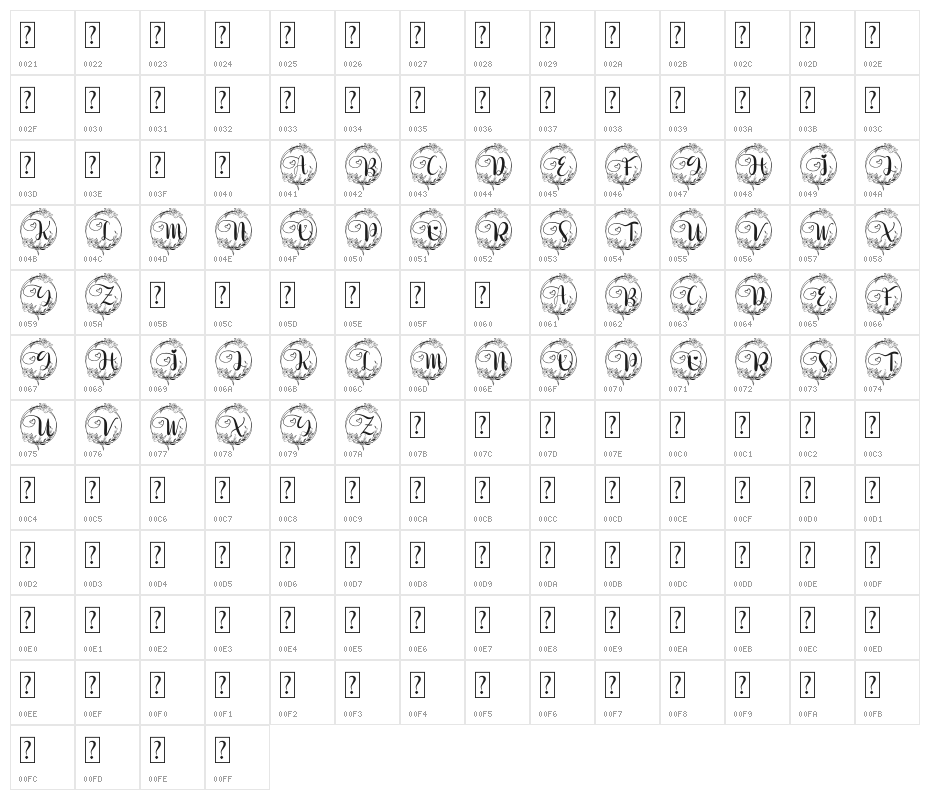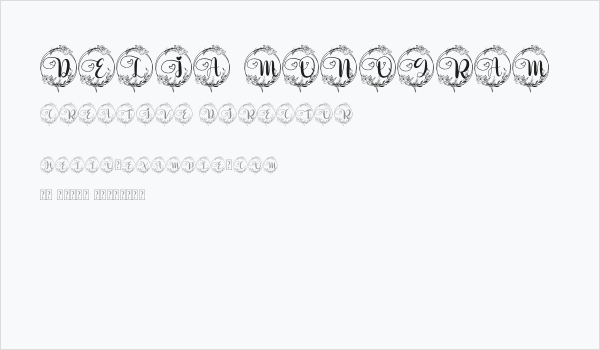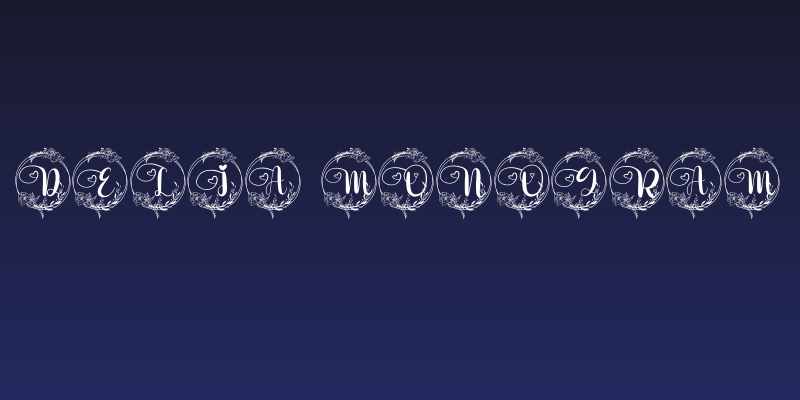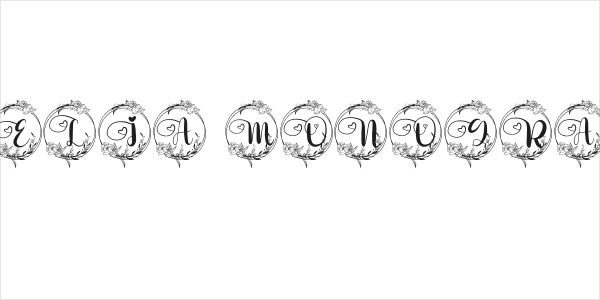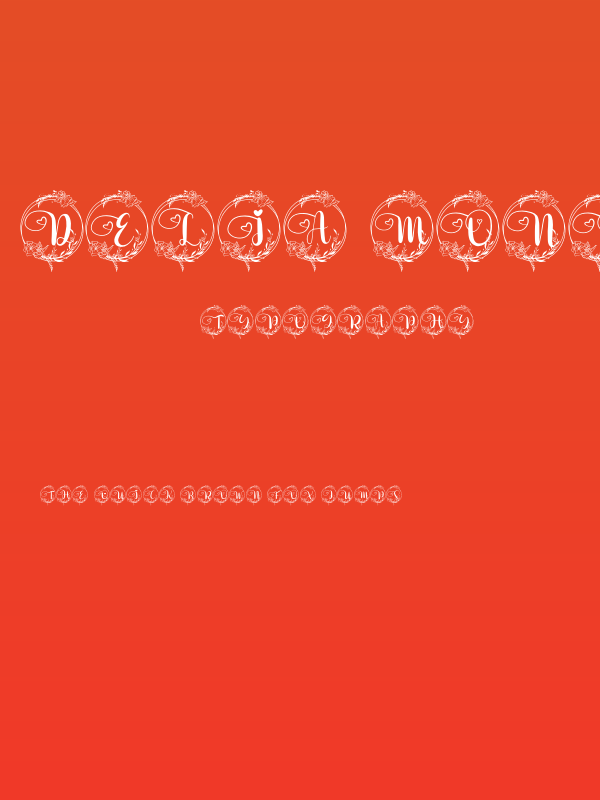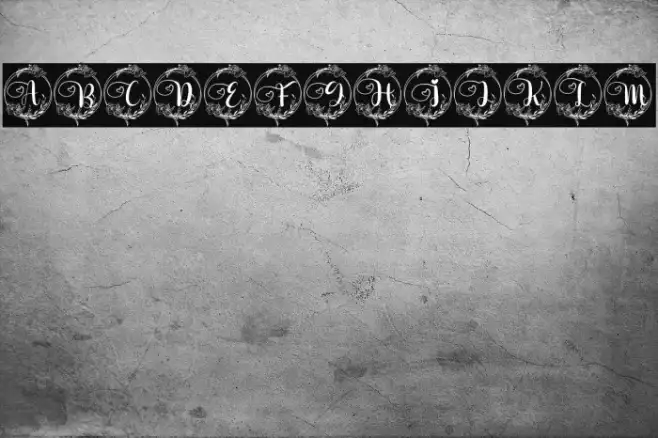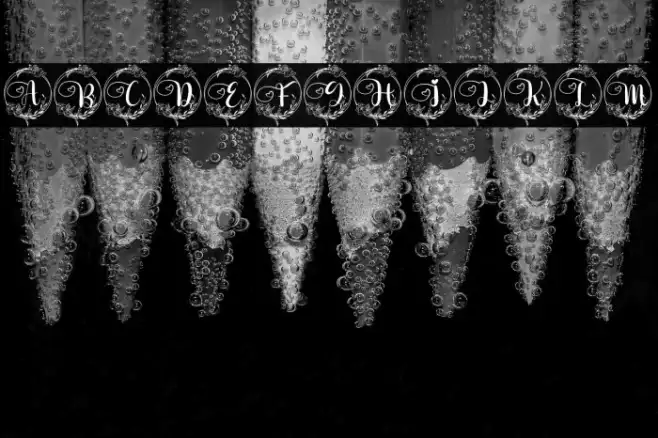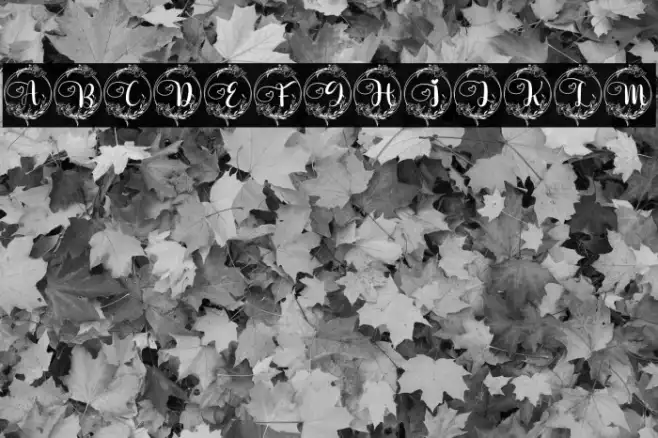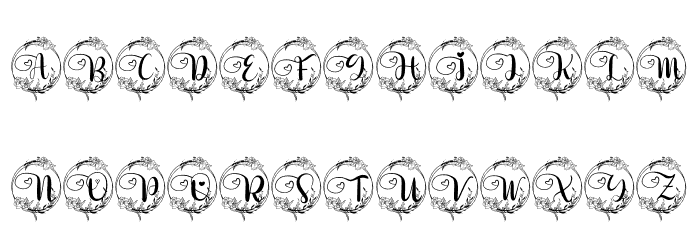
Delia Monogram Font
Delia Monogram Description
This font features an elegant and intricate design, with each letter encased in a decorative circular frame adorned with floral motifs. The characters themselves are crafted in a script style, exuding a sense of sophistication and classic charm. The uppercase and lowercase letters maintain a consistent aesthetic, emphasizing ornate curves and flourishes. The overall presentation is reminiscent of vintage monograms, making it ideal for projects that require a touch of elegance and personalization.
| Use Case | Logos, Invitations, Decorative Monograms |
| Proposed Projects | Ideal for wedding invitations, luxury branding, personalized stationery, and decorative monograms. |